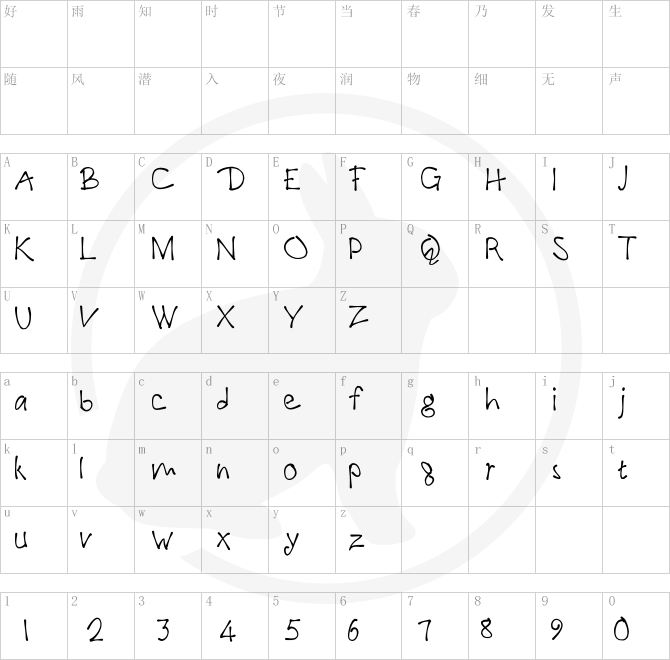
- Font Name:!PaulMaul
!PaulMaul.ttf is a very beautiful artistic font, !PaulMaul.ttf is widely used in the design and printing of various books and pictures,!PaulMaul.ttf has a strong visual impact,!PaulMaul.ttf is a commonly used font in newspapers, magazines and books, and is used in posters, e-commerce Poster design, store design, logo design, font design and other fields.!PaulMaul.